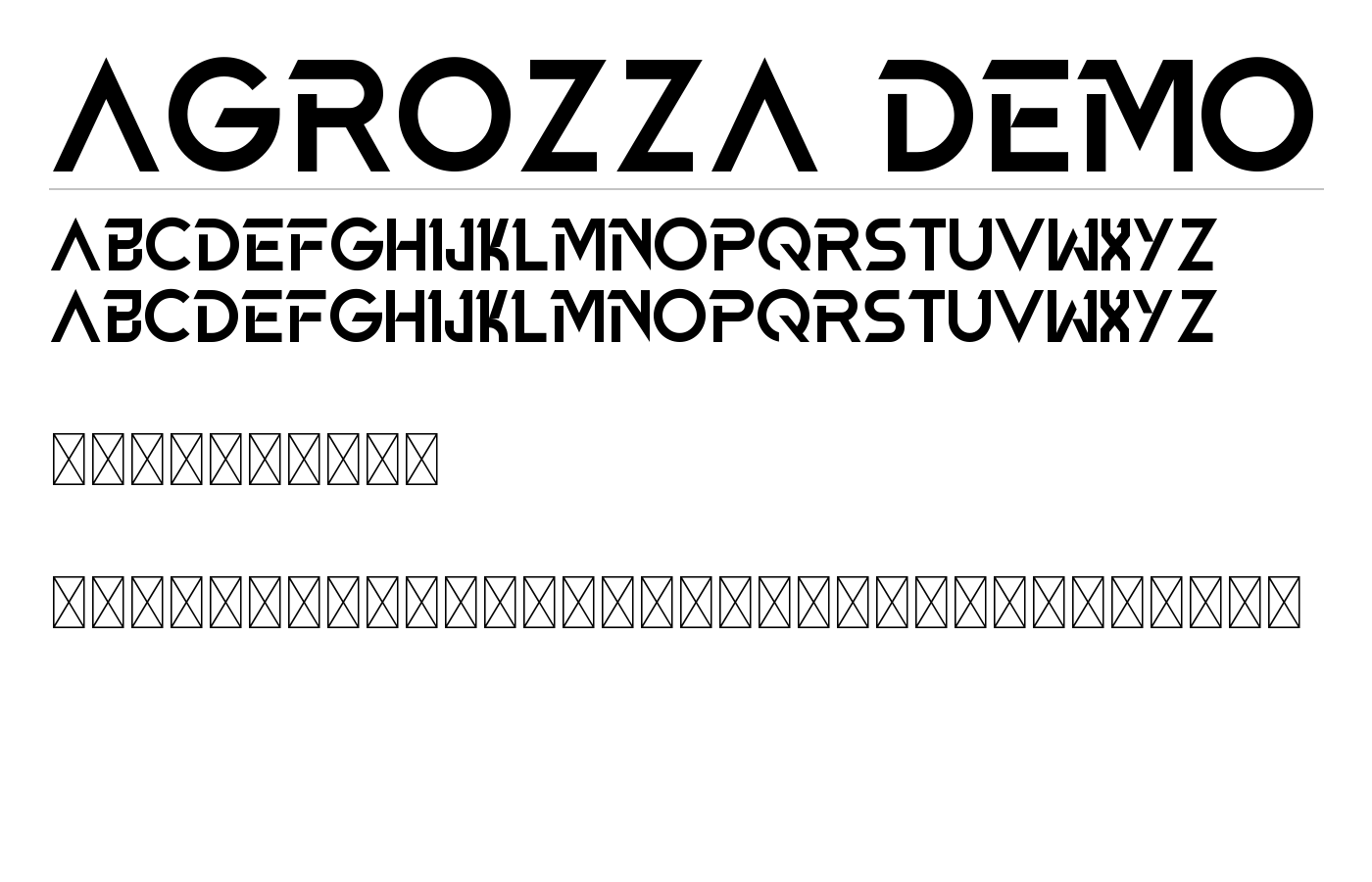
Agrozza Demo is a bold, futuristic sans serif font characterized by sharp angles and clean geometric shapes, creating a striking and modern appearance. Its uppercase-only design and unique letterforms, such as the stylized "A" and angular accents, give it a distinctive, high-tech personality ideal for logos, headlines, and branding projects that seek a cutting-edge and innovative feel. This font works best where strong visual impact and a sense of forward-thinking style are desired.
Agrozza Demo Font
About Agrozza Demo Font
| Font family | Agrozza Demo Font |
| Designer | Fajar Saepul Rohman & Suci Anita |